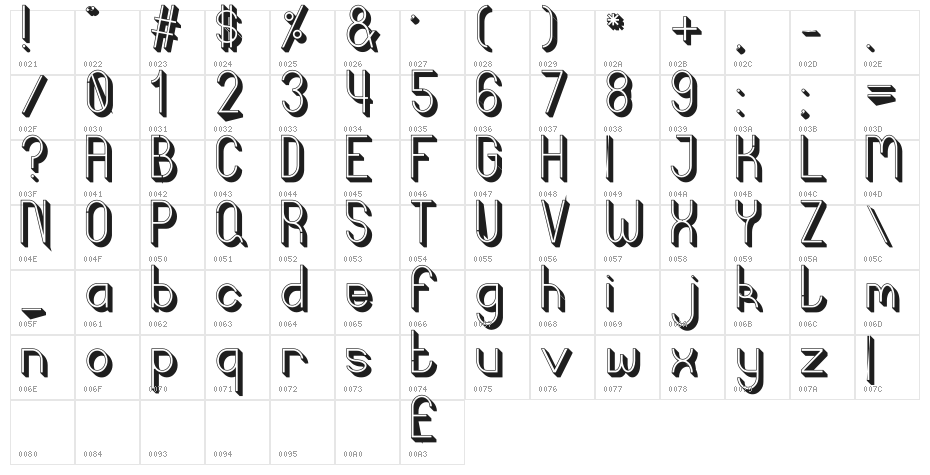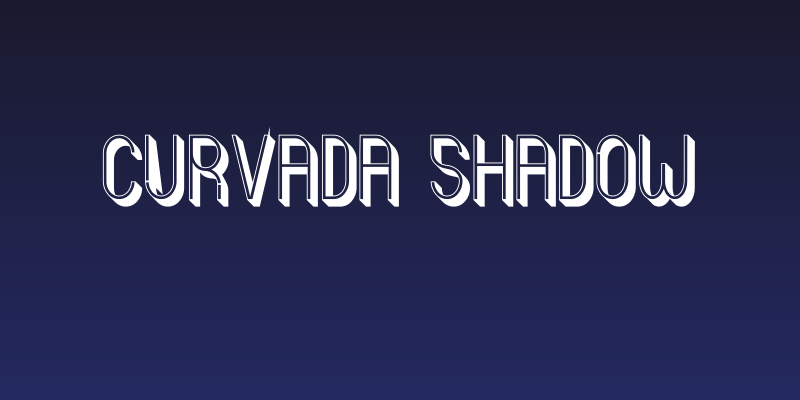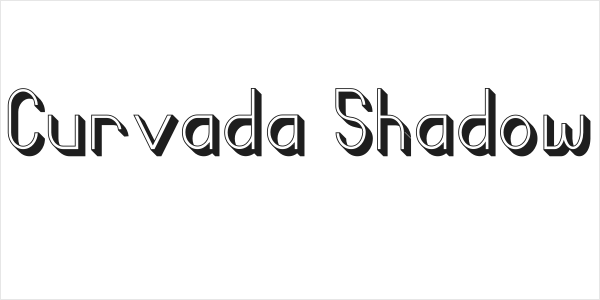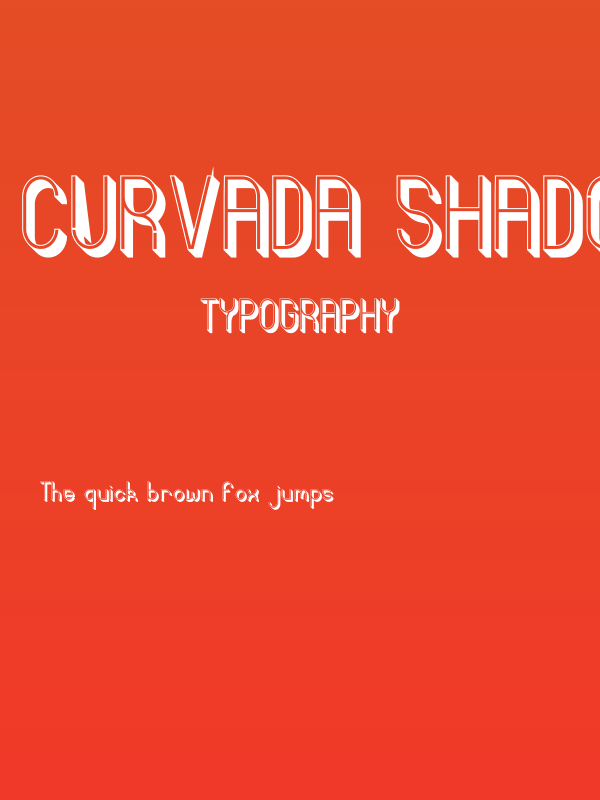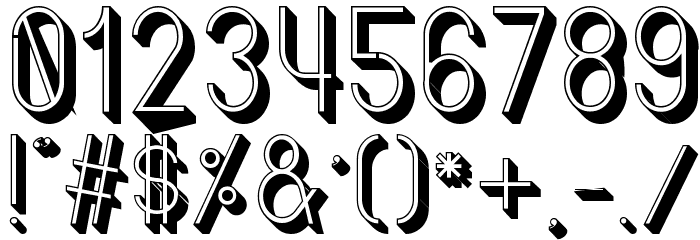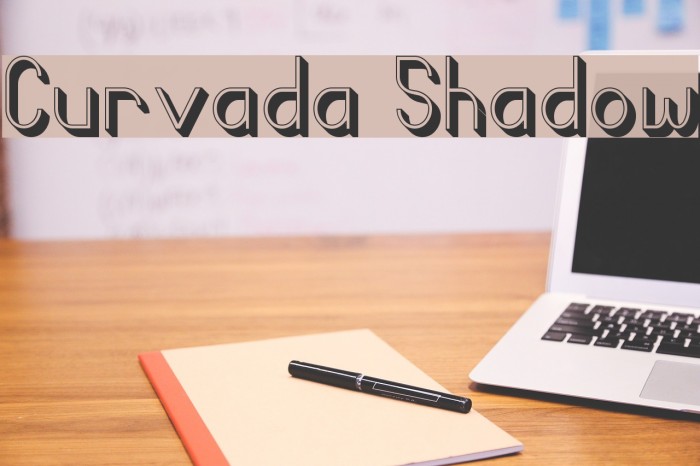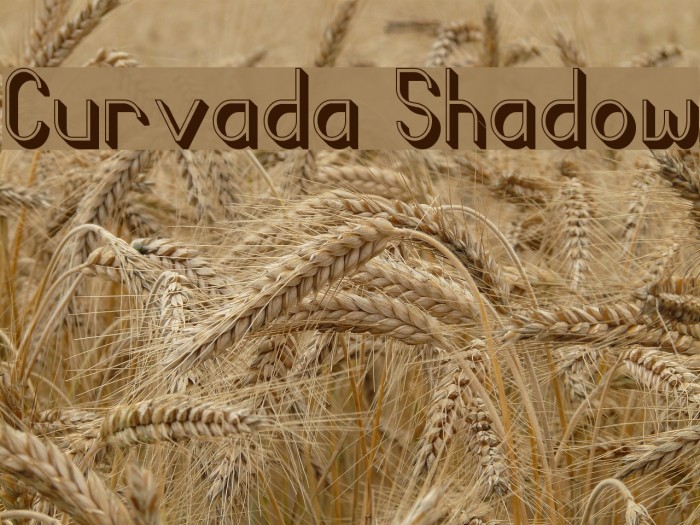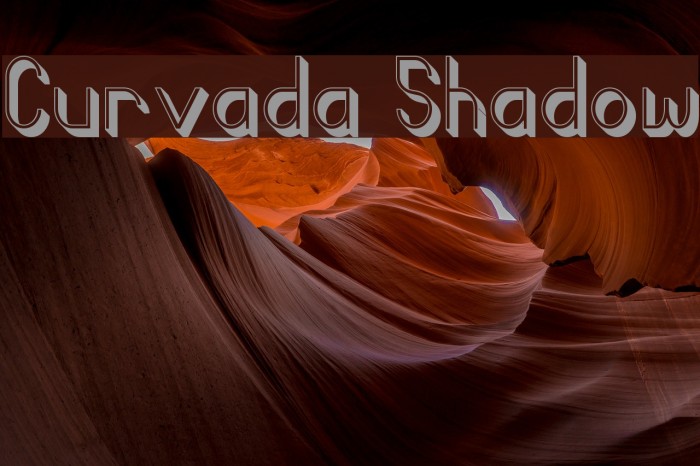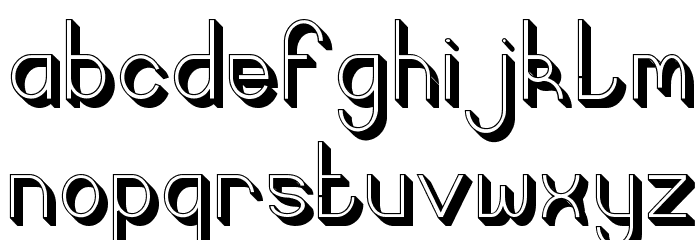
Curvada Shadow Font
Curvada Shadow Description
This font features a bold and dynamic style with a distinct shadow effect that gives it a three-dimensional appearance. The characters are designed with a modern flair, incorporating clean lines and geometric shapes. The uppercase letters are particularly striking, with a strong presence that makes them ideal for attention-grabbing headlines. The lowercase letters maintain the same stylistic elements, ensuring consistency throughout the typeface. Numbers and special characters are also included, each with the same shadowed design, adding to the font's cohesive look. The overall style is both playful and sophisticated, making it suitable for a variety of creative projects.